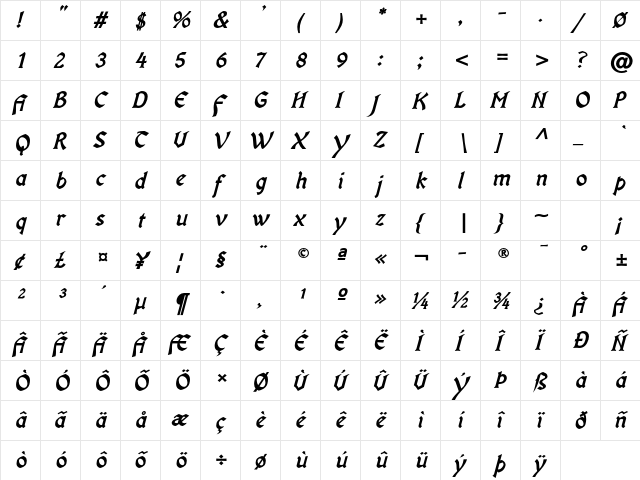
Oldania ADF Std Bold Italic
| Foundry | Arkandis Digital Foundry. |
| Designer | Hirwen HARENDAL |
Design Context for Oldania ADF Std Typeface
Oldania ADF Std is a composed and adaptable typeface that performs quietly and consistently across a wide range of design contexts. Its italic angle brings a sense of urgency and motion to the letterforms. The heavy weight commands attention and anchors typographic hierarchies.